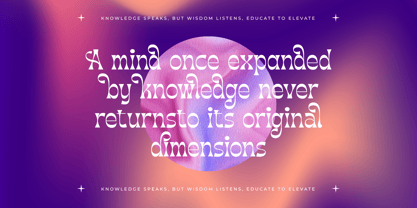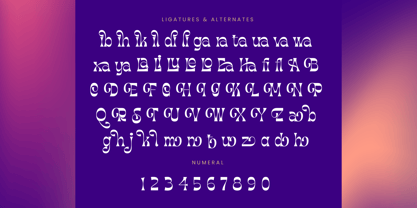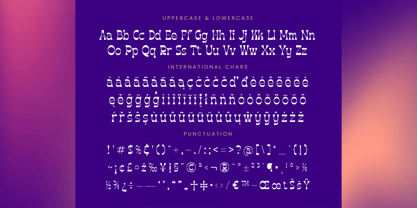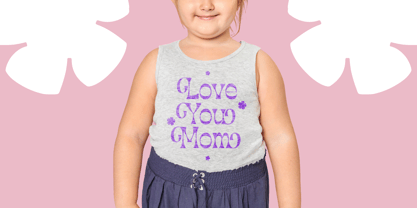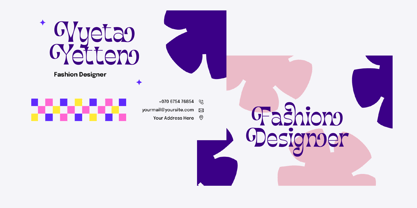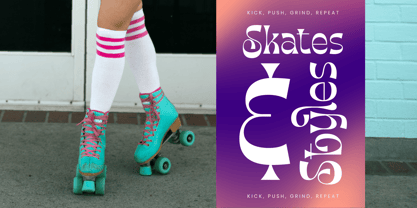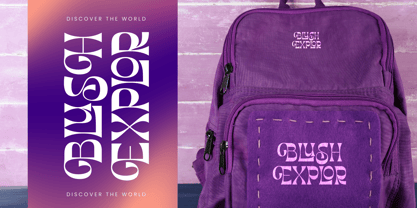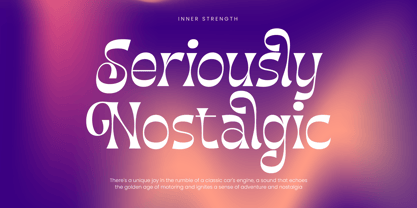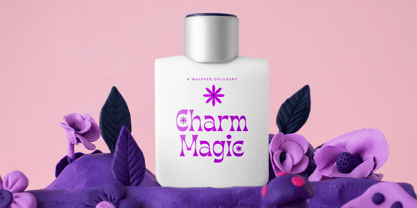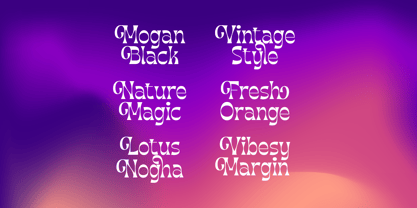
Morgai Retan
by Timelesstype Studio
The Morgai Retan Font Family was designed by Heru Utama Putra and published by Timelesstype Studio. Morgai Retan contains 2 styles and family package options. More about this family
Morgai Retan - Display Psychedelic Font ,from Timelesstype,Suitable for any projects such as: logos, branding projects, homeware designs, product packaging, mugs, quotes, posters, shopping bags, t-shirts, book covers, name card, invitation cards, greeting cards, label, photography, watermark, special events, and all your other luxury and beautiful projects that need a Luxury Serif taste.